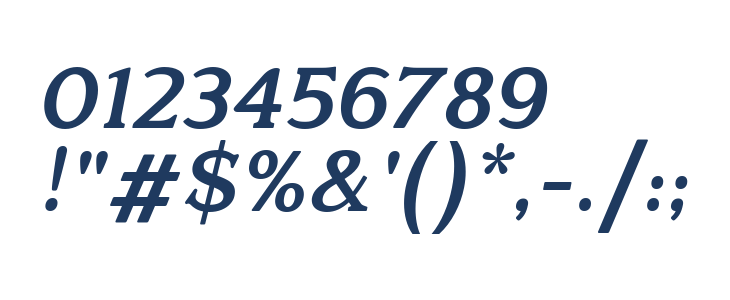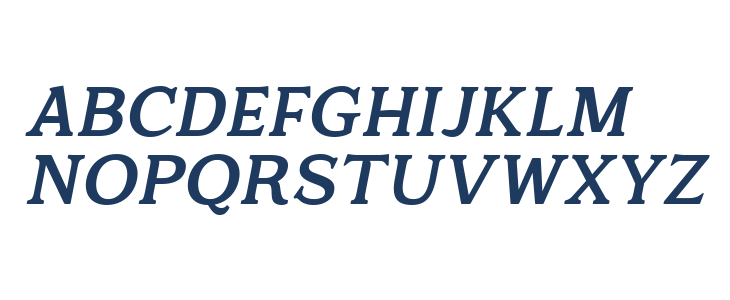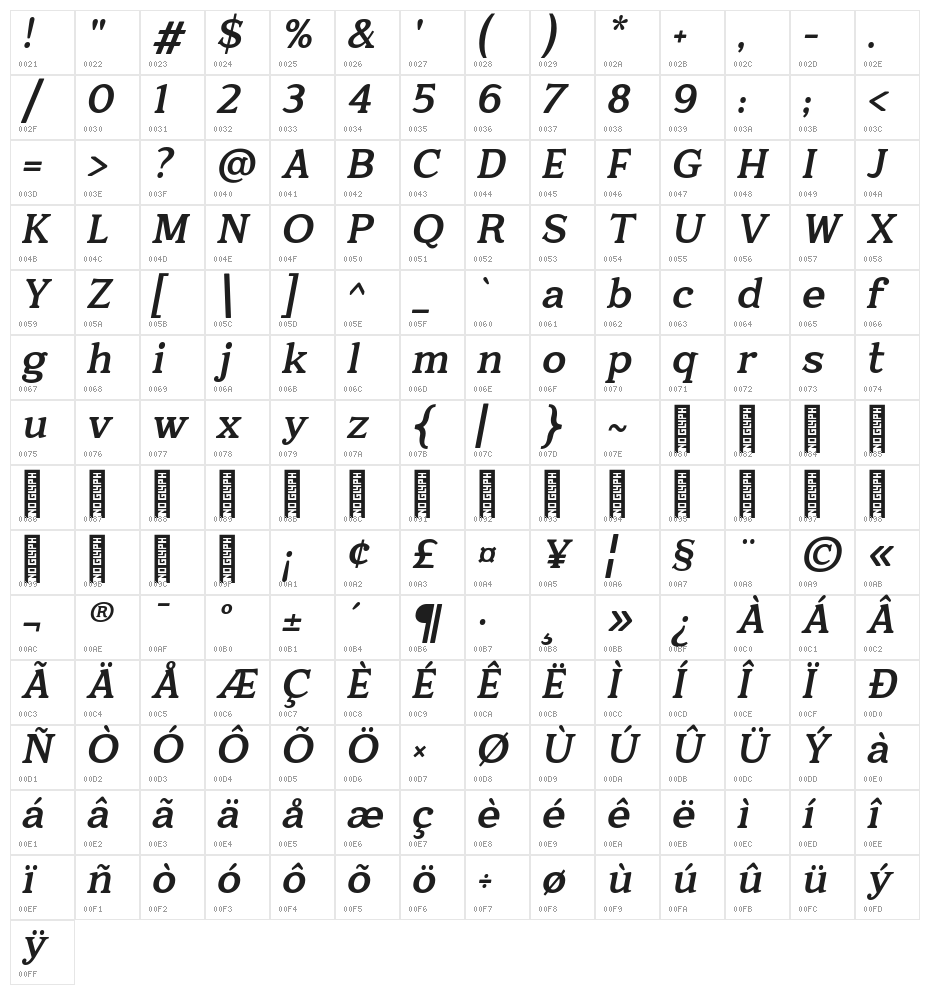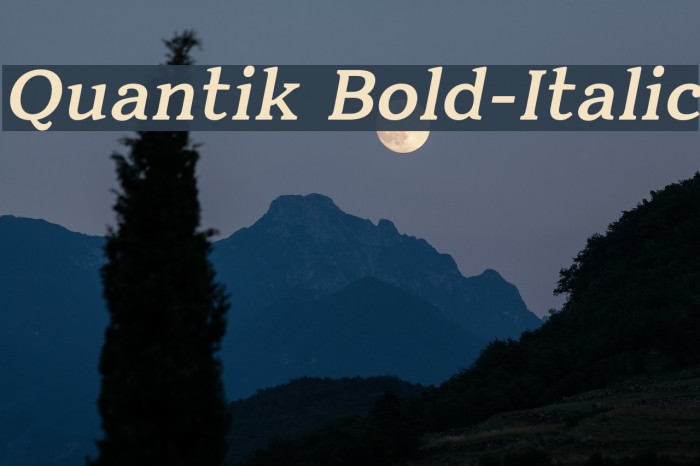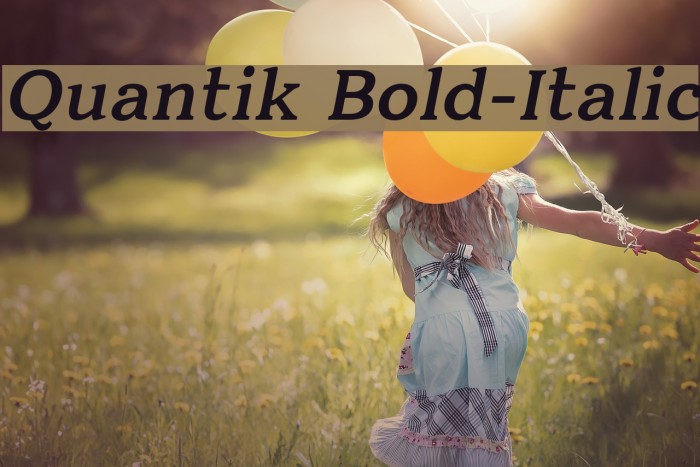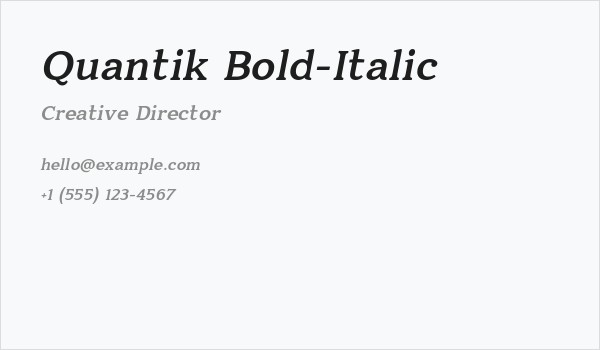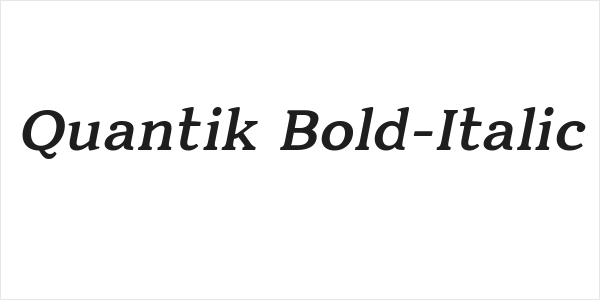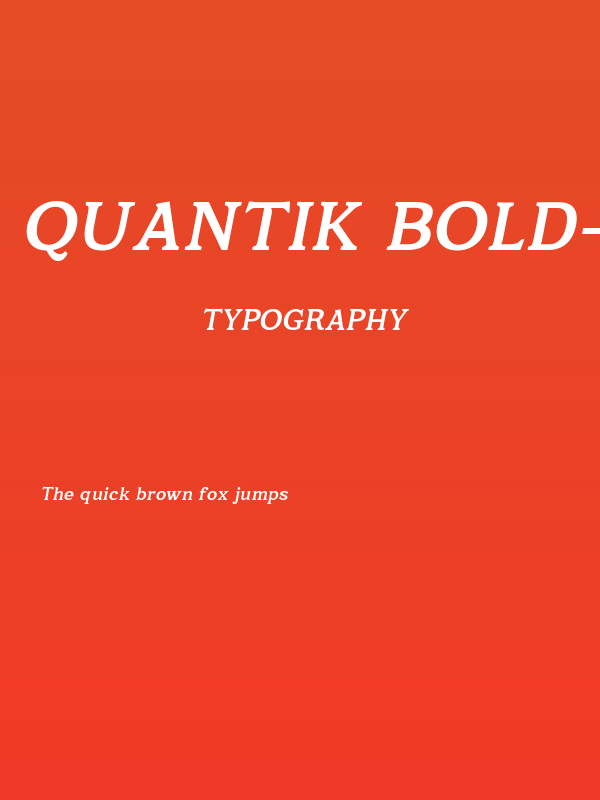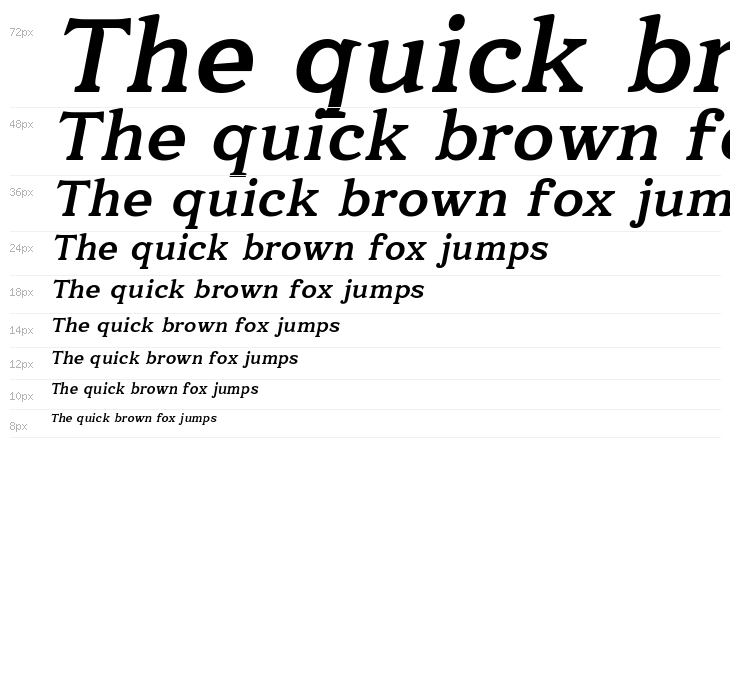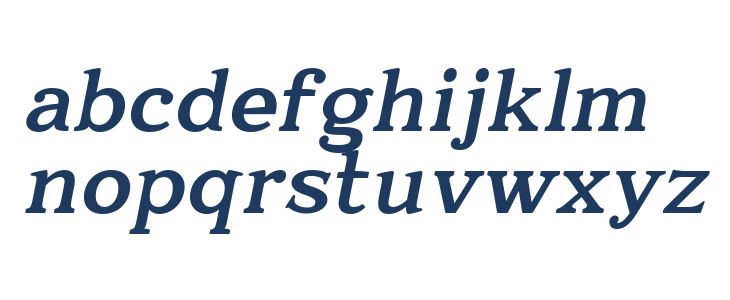
Quantik Bold-Italic Font
Quantik Bold-Italic Description
This font exhibits a bold and italicized style, characterized by its strong presence and dynamic slant. The uppercase letters are robust and slightly condensed, giving a sense of authority and emphasis. The lowercase letters maintain a consistent slant, providing a cohesive look throughout the text. Numerals are clear and bold, ensuring readability. Special characters are well-defined, adding versatility to the font. The overall design is modern yet classic, suitable for making impactful statements.
Proposed ProjectsIdeal for branding, headlines, posters, and any project requiring a strong, impactful typeface.